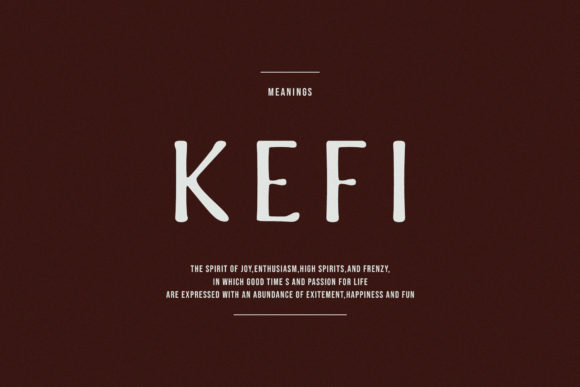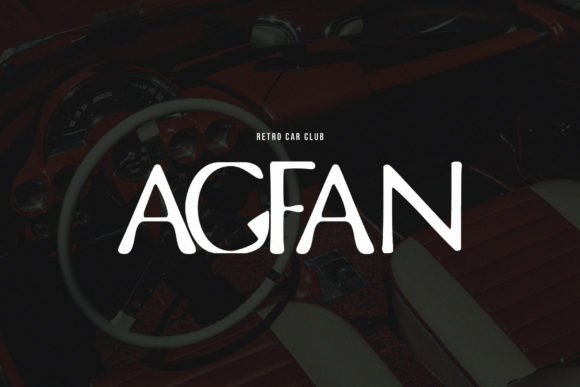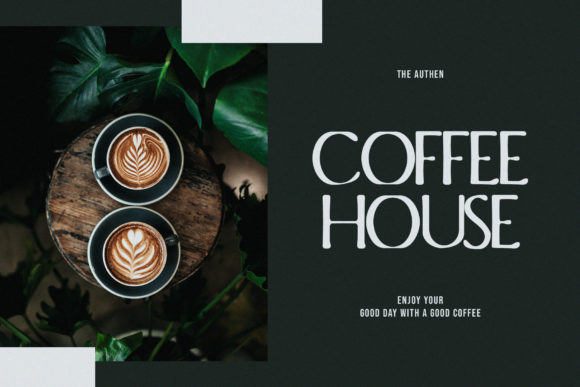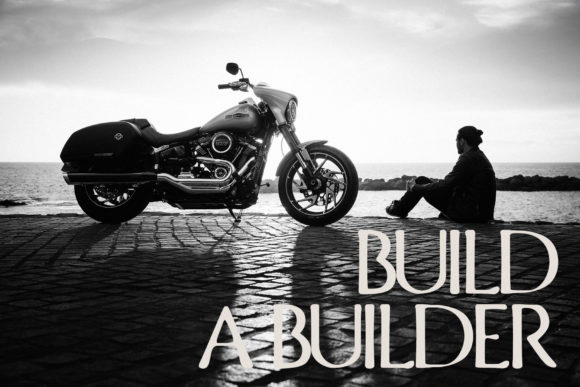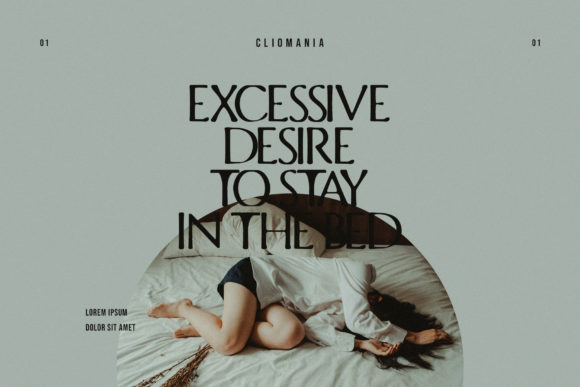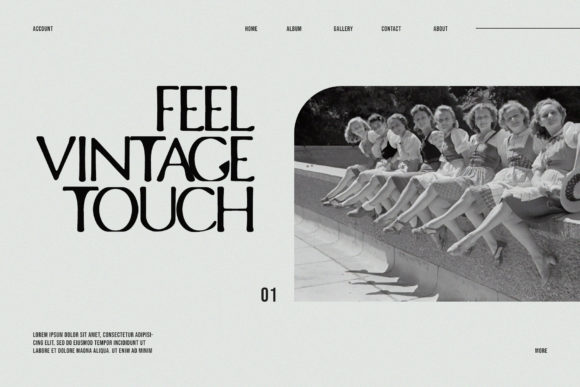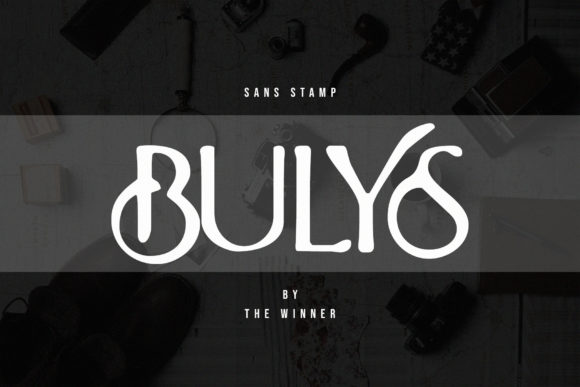
Bulys Font: A Retro Serif Revival for Modern Designs
In the realm of typography, fonts play a pivotal role in shaping the visual identity of a brand, product, or creative project. Among the myriad of fonts available, Bulys stands out as a distinctive retro serif font that has garnered attention for its nostalgic charm and versatility. Inspired by the aesthetics of the 1970s, Bulys offers a unique blend of classic elegance and modern appeal, making it an ideal choice for designers and crafters looking to infuse their work with a touch of vintage sophistication.
The Inspiration Behind Bulys
Bulys is a font that draws its inspiration from the typographic trends of the 1970s, an era known for its bold and expressive design language. The 1970s were a time of great creativity and experimentation in the world of graphic design, with designers often looking to the past for inspiration while pushing the boundaries of the present. Bulys captures the essence of this era with its serif details and retro flair, offering a font that is both nostalgic and refreshingly modern.
Key Features of Bulys Font
Bulys boasts several key features that make it an attractive choice for a wide range of design applications:
- Retro Serif Design: The font’s serif design pays homage to the classic typography of the 1970s, while its clean lines and balanced proportions ensure it remains highly legible and versatile.
- Versatility: Bulys is designed to be versatile, making it suitable for various design projects, from branding and product packaging to invitations, quotes, T-shirts, labels, posters, logos, and more.
- Aesthetic Appeal: The font’s unique blend of retro charm and modern simplicity gives it a distinctive aesthetic appeal that can help make any design project stand out.
Applications of Bulys Font
The versatility of Bulys makes it an excellent choice for a multitude of design applications:
- Branding: Use Bulys to create a memorable brand identity that stands out with its unique retro charm.
- Product Packaging: Add a touch of vintage elegance to your product packaging, making it more appealing to customers.
- Invitations and Quotes: Create eye-catching invitations and quotes that convey a sense of nostalgia and sophistication.
- T-shirts and Merchandise: Design custom T-shirts and merchandise with Bulys for a distinctive look that is sure to attract attention.
- Labels and Posters: Use Bulys for labels and posters to add a retro flair that captures the essence of the 1970s.
- Logos: Develop unique logos with Bulys that embody the perfect blend of classic and contemporary design.
Why Choose Bulys for Your Design Projects?
Incorporating Bulys into your design projects offers several advantages:
- Unique Aesthetic: Bulys provides a distinctive aesthetic that can set your designs apart from the competition.
- High Legibility: Despite its decorative elements, Bulys maintains high legibility, making it suitable for both headlines and body text.
Bulys is more than just a font; it’s a design statement that combines the nostalgic charm of the 1970s with the demands of modern design. Its versatility, aesthetic appeal, and ease of use make it an invaluable tool for designers and crafters looking to create distinctive and engaging designs. Whether you’re working on branding, product packaging, invitations, or any other design project, Bulys offers the perfect blend of retro flair and contemporary style to ensure your work stands out.
Embrace the unique qualities of Bulys and discover how this retro serif font can elevate your designs, making them more attractive and outstanding in a crowded design landscape.